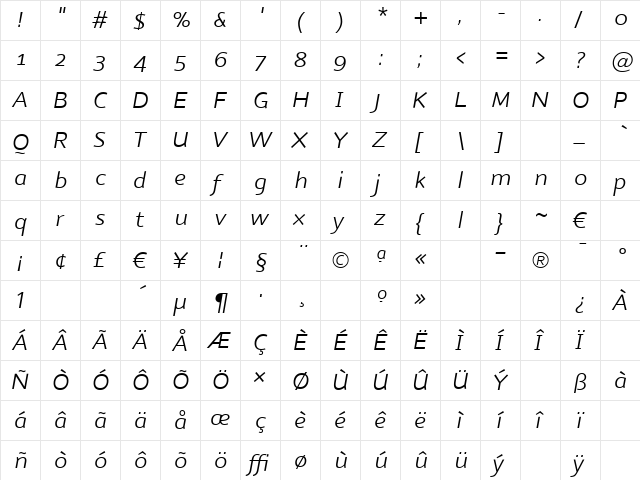
NubianLightItalic Regular
Design Context for NubianLightItalic Typeface
NubianLightItalic offers clean, dependable letterforms without strong stylistic allegiance, making it a practical choice for designers who need flexibility. Its italic angle brings a sense of urgency and motion to the letterforms. Its slender proportions lend an understated elegance to any composition.